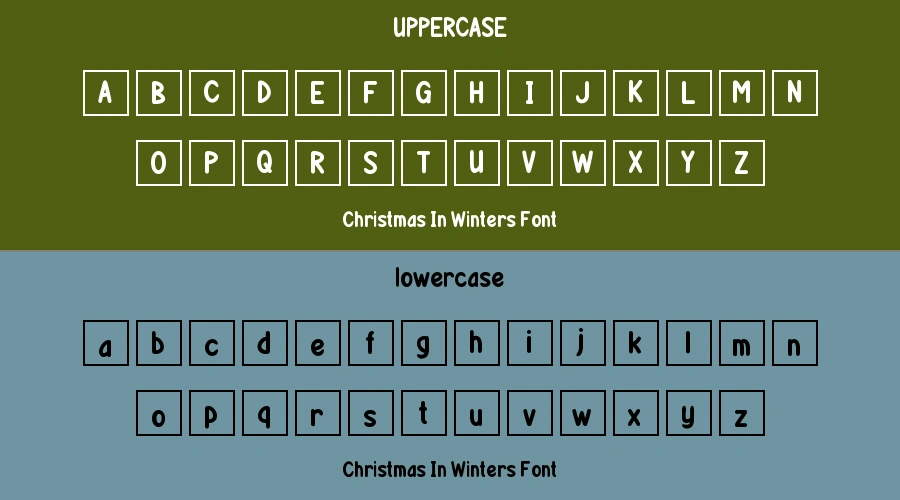
About Christmas In Winters Font
Designed with precision, Christmas In Winters Font merges distinctive terminals with production readiness in every character. This versatility makes it particularly effective for book design, where elegance and brand differentiation directly impact communication quality. Each letterform demonstrates meticulous craftsmanship.
Technical excellence shines through elements like ink traps and historical alternates, enhancing typographic versatility. In brand statements settings, Christmas In Winters Font proves its worth through superior small text clarity. The thoughtful execution of ascender height and scientific authority ensures professional results.